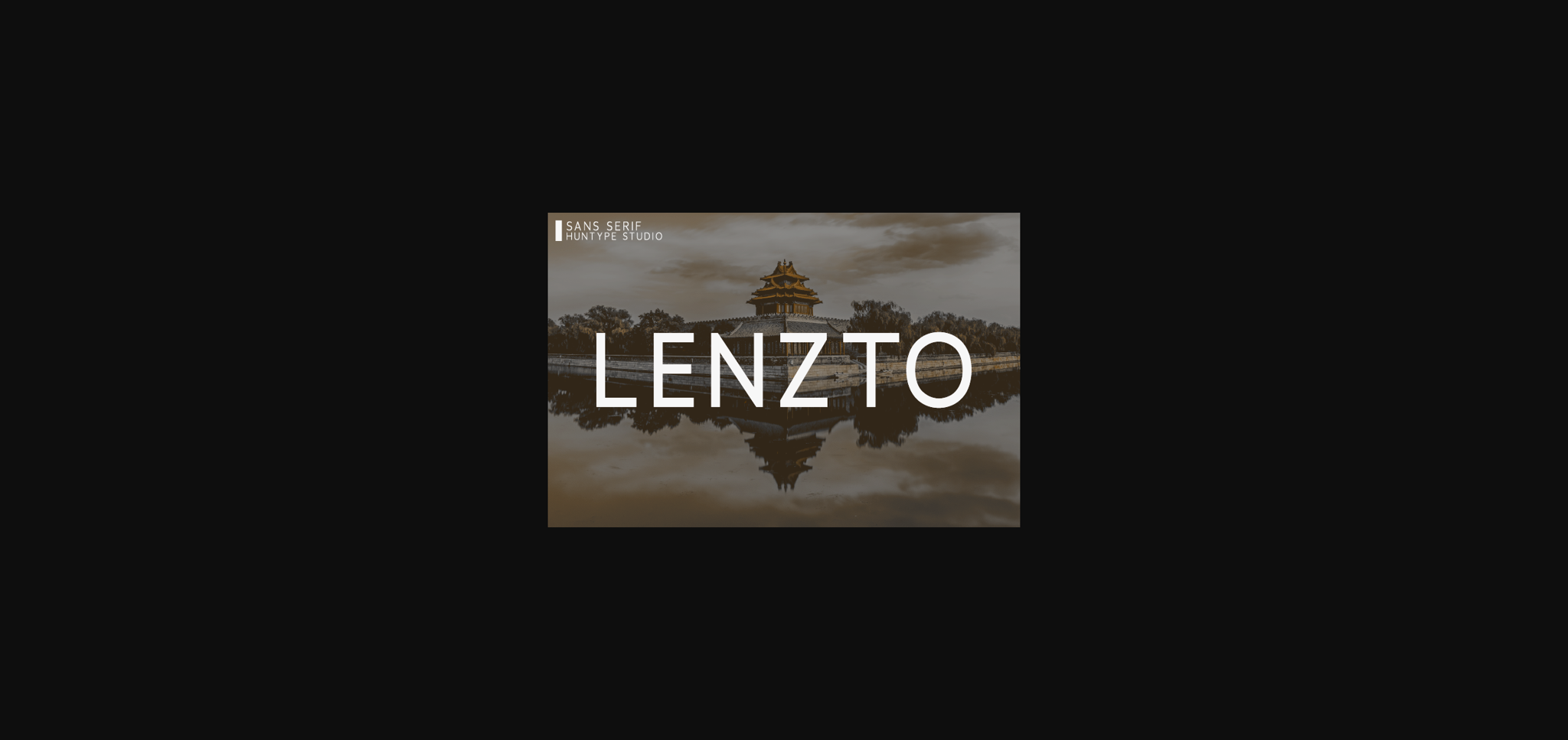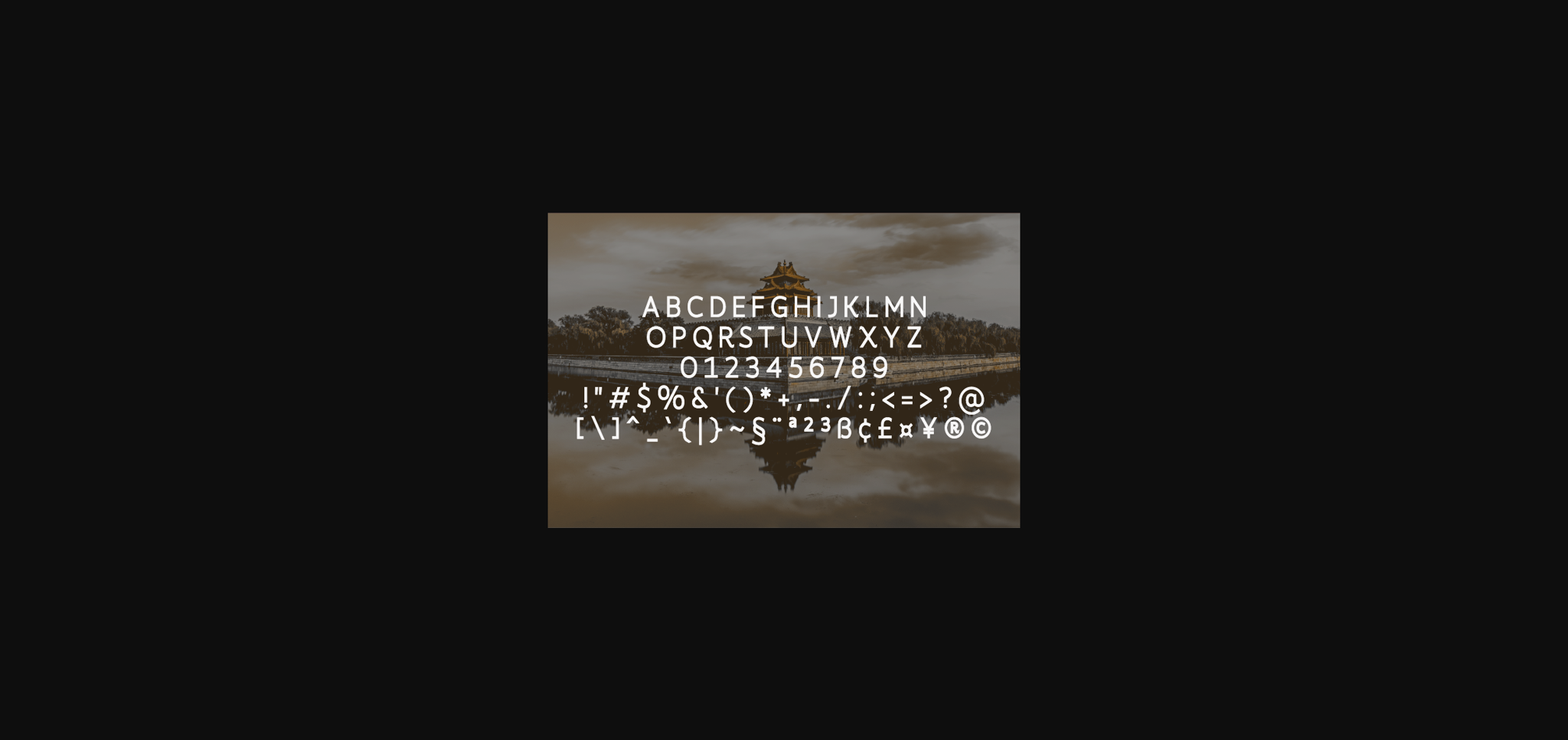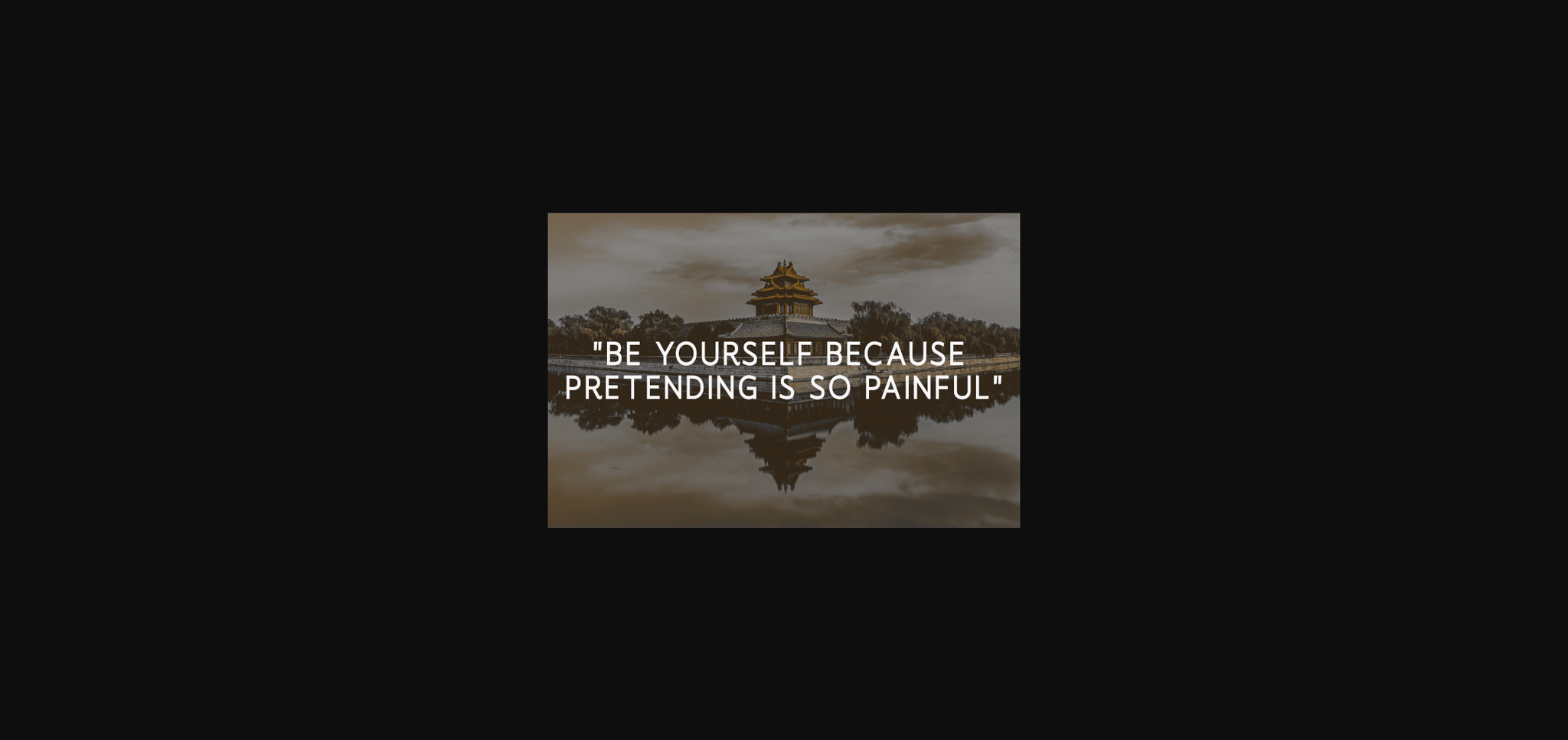
HomeSans Serif FontsLenzto Font Sans Serif Fonts Lenzto Font FacebookXPinterestWhatsApp 1 of 5 ... Lenzto Font Poster 2... Lenzto Font Poster 3... Lenzto Font Poster 4... Lenzto Font Poster 5... About Lenzto Font Lenzto is a simple and wide lettered sans serif font. Its natural and unique style makes it incredibly fitting to a large pool of designs DOWNLOAD NOW People also explored Explore Magic Font Flower of Love Font Calliah Chalk Marks Font Bible Font Jolgoria in Town Font Brush Textured Font Bundle Vol. 2 Black Pen Script Font Dopetta Font 348 0 TagsLenztoLenzto Font Previous articleHerdson FontNext articleRannoon Font LEAVE A REPLY Cancel reply Comment: Please enter your comment! Name:* Please enter your name here Email:* You have entered an incorrect email address! Please enter your email address here Website: Save my name, email, and website in this browser for the next time I comment. Personal Use Free Theobald Personal Use Free Read more about this font Kaysan Personal Use Free Read more about this font Coffete Personal Use Free Read more about this font Braindly Personal Use Free Read more about this font BLOG Where to Buy American Fonts Online in 2024 Where to Buy American Fonts Online: The Ultimate Guide for 2024 Looking for the perfect American font to elevate your design projects? You're in the... Fonts That Capture the Spirit of New York City Free vs Paid Fonts: Why Investing in Premium Fonts Is Worth It How to Install and Use Fonts on Windows, macOS, and Web Projects